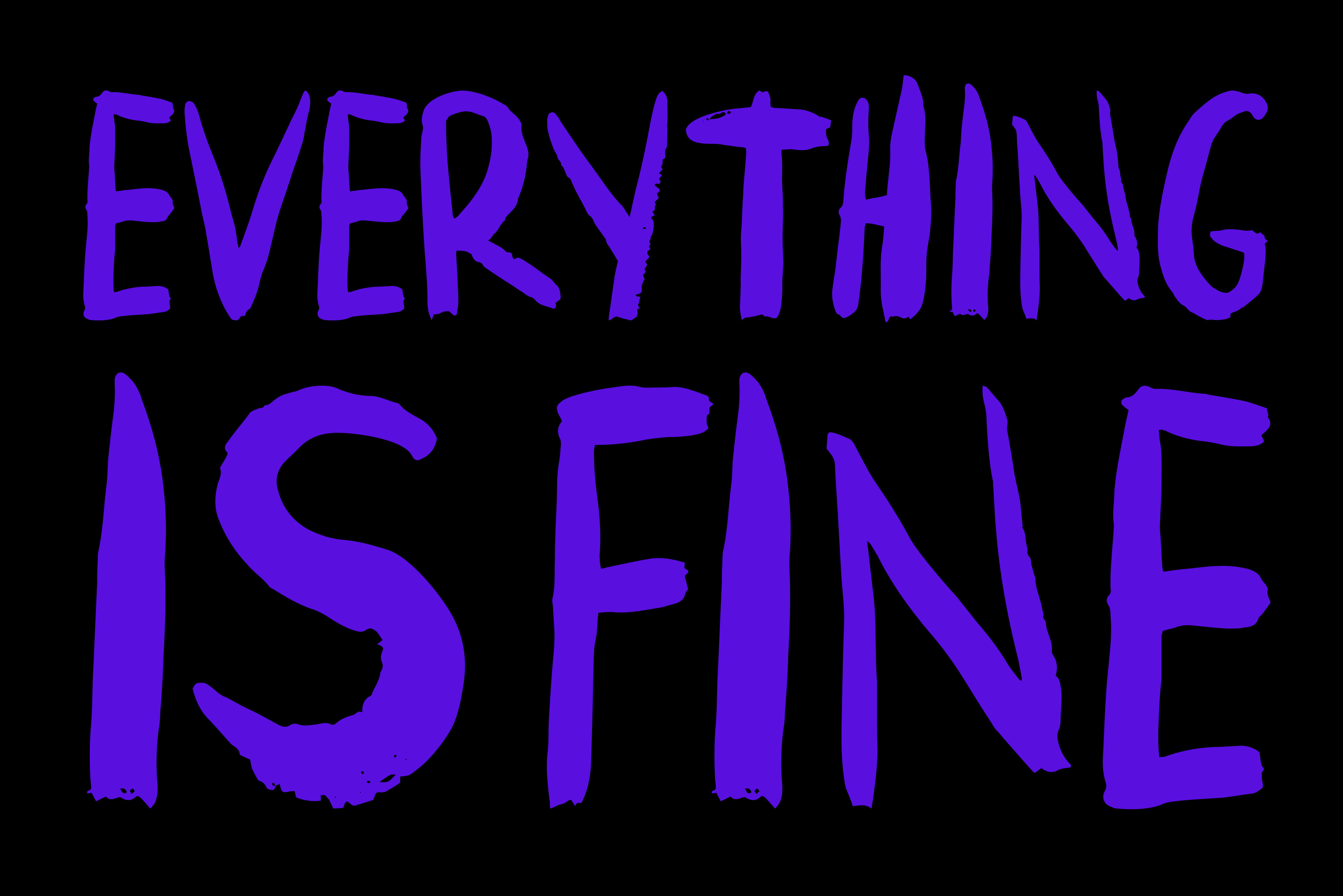
EVERYTHING IS FINE - Brush Font
EVERYTHING IS FINE is a raw, visceral font that captures all the rich textural brushwork of an authentic, painted typeface. Created using acrylic paint, its unique characteristics and stylistic imperfections are perfect for when you want to make a statement with big, bold type treatments.